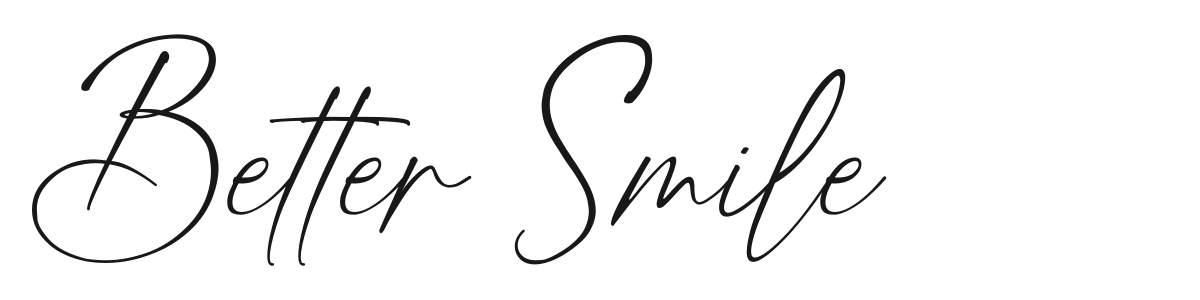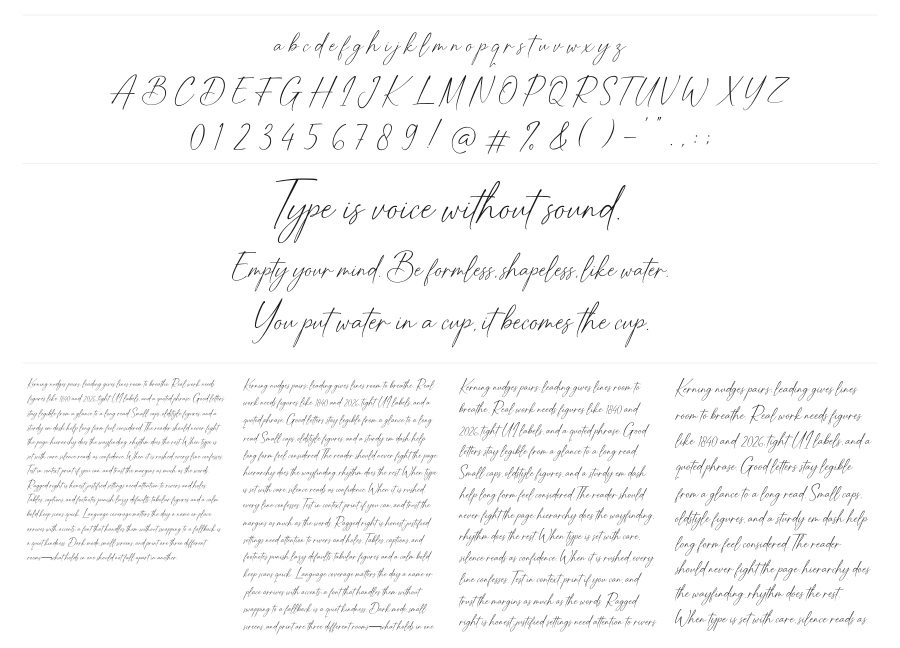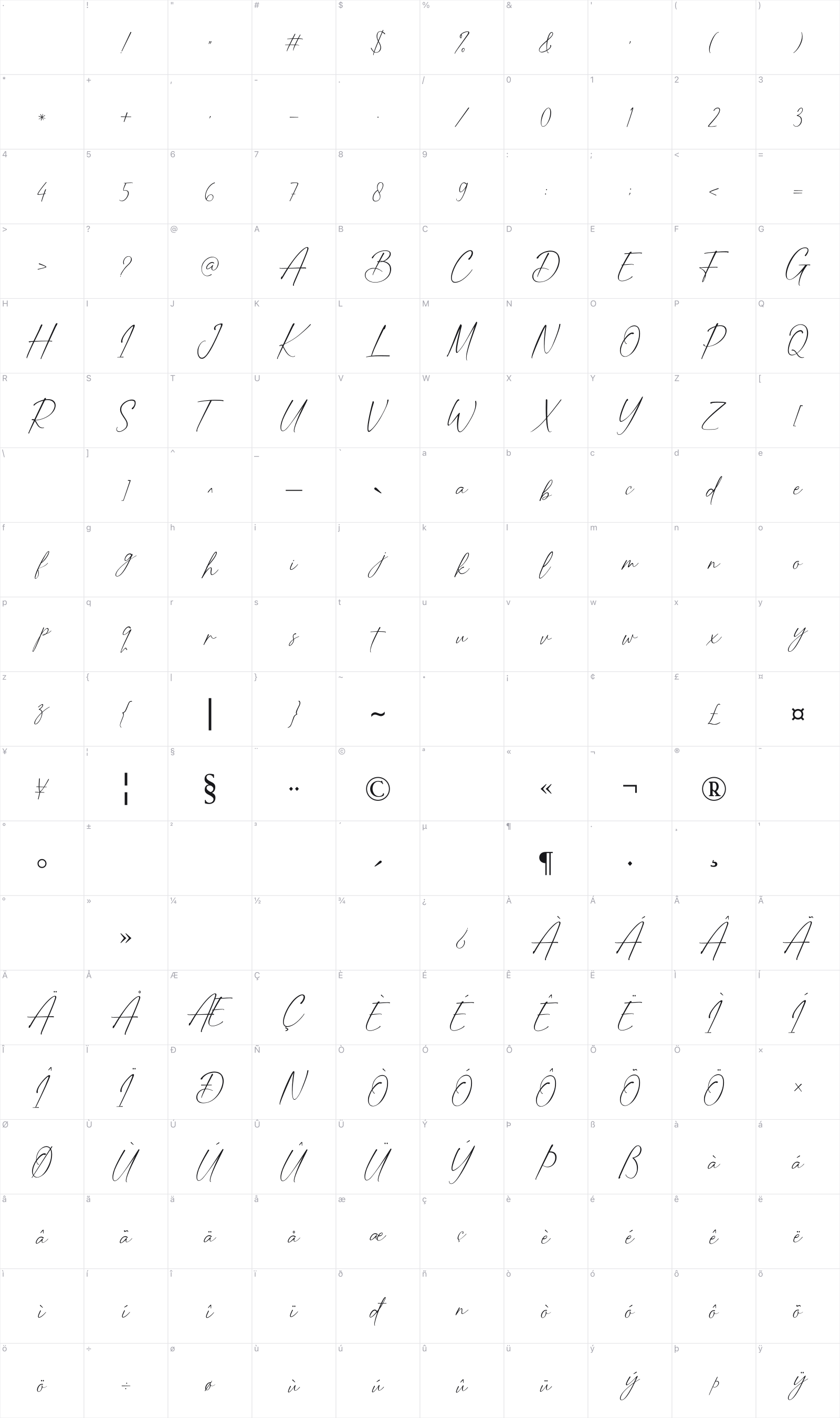
Better Smile
Better Smile is a flowing casual script with thin looping strokes and sweeping ascenders that give it a light, romantic energy. The relaxed rhythm sits somewhere between modern calligraphy and a refined handwritten note. It works well at large sizes for logos, invitations, and lifestyle branding.